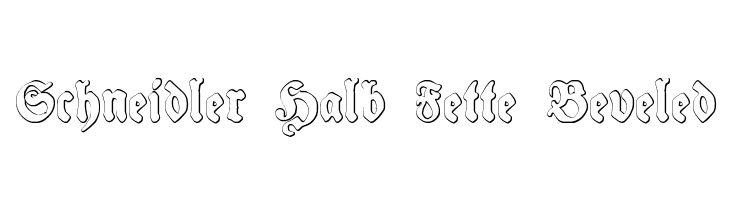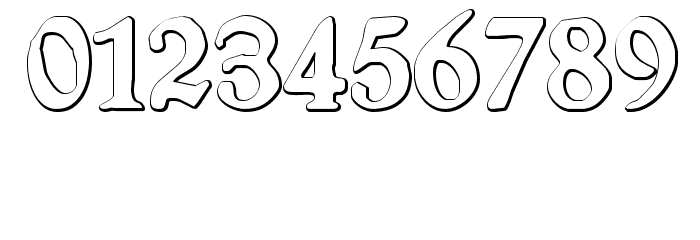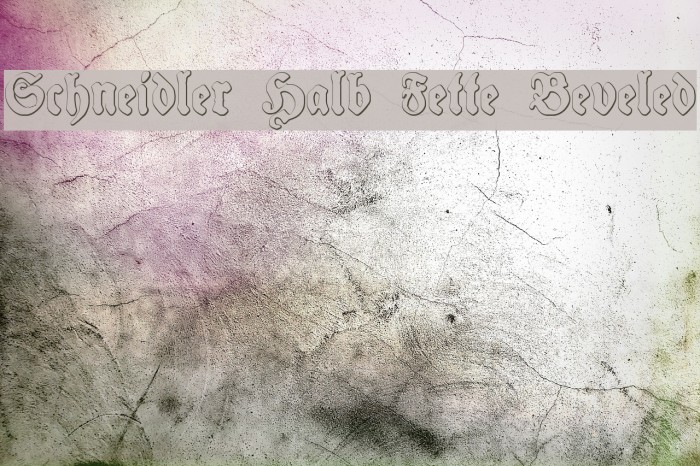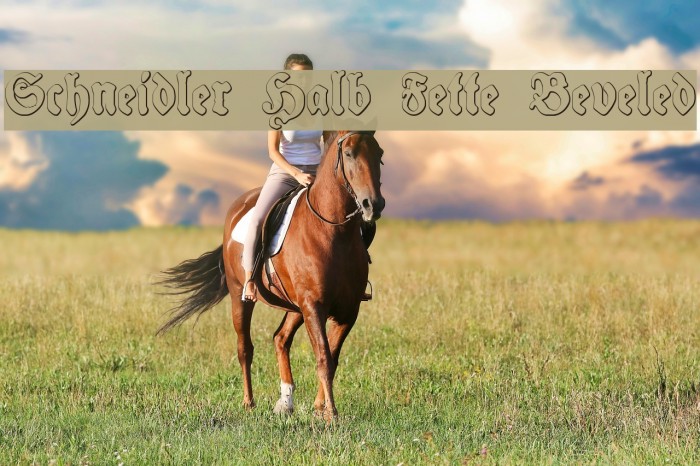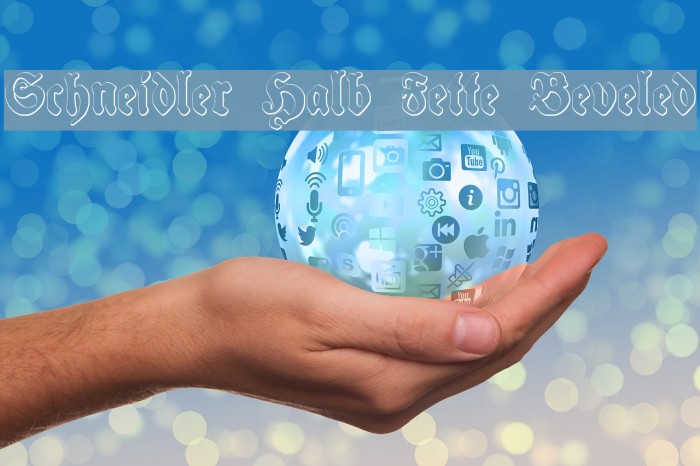
Schneidler Halb Fette Beveled Font
This font features a distinctive beveled style with a bold, decorative appearance. The characters are intricately designed with a gothic influence, showcasing sharp edges and elaborate curves. The uppercase letters are particularly ornate, while the lowercase letters maintain a consistent style with slightly less embellishment. The numbers are bold and match the overall aesthetic, making them suitable for impactful displays. The special characters are uniquely crafted to complement the letterforms, enhancing the font's cohesive look.
A bold, decorative font with a beveled, gothic-inspired style.
• Proposed Projects: Ideal for vintage-themed posters, book covers, logos, and branding that require a dramatic and historical touch.
• Category: Decorative/Display
• Overall Style: Vintage
• Use Case: Headlines, Logos